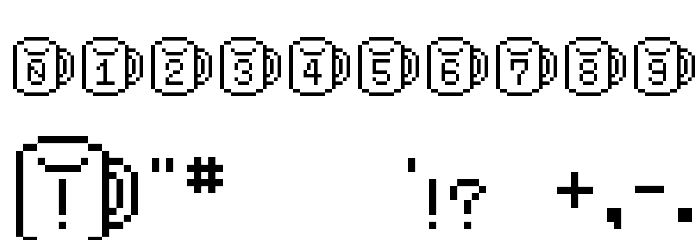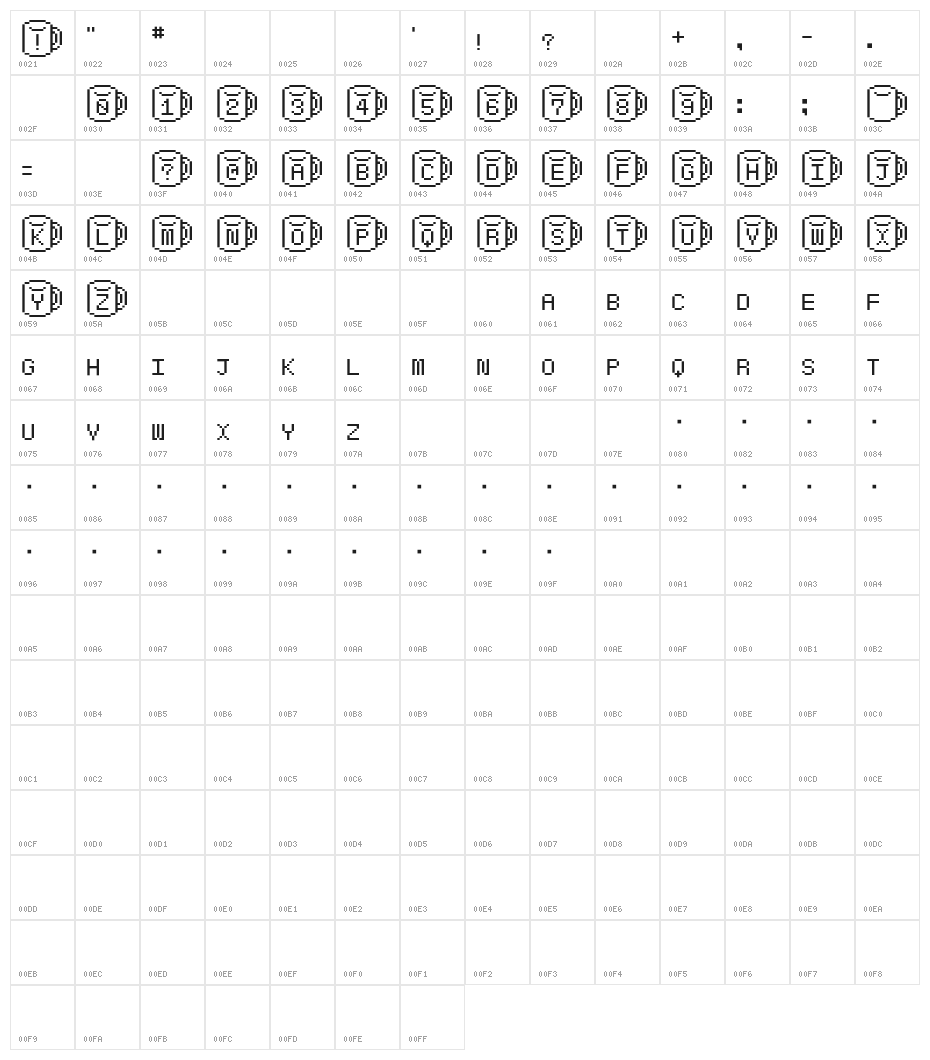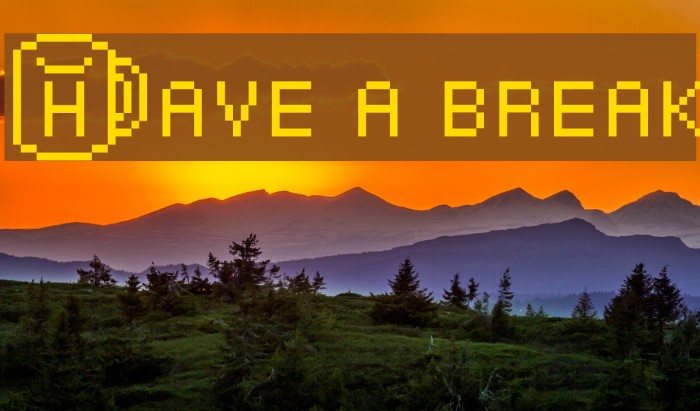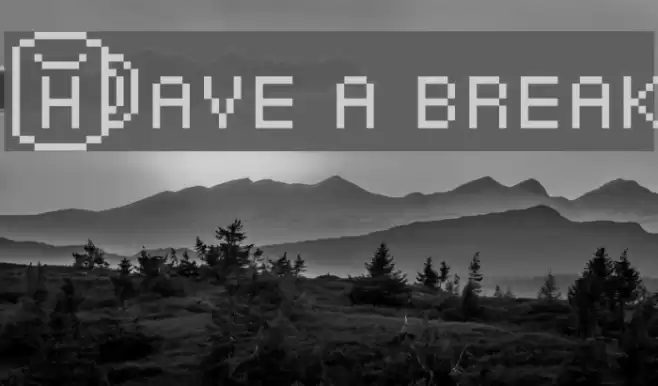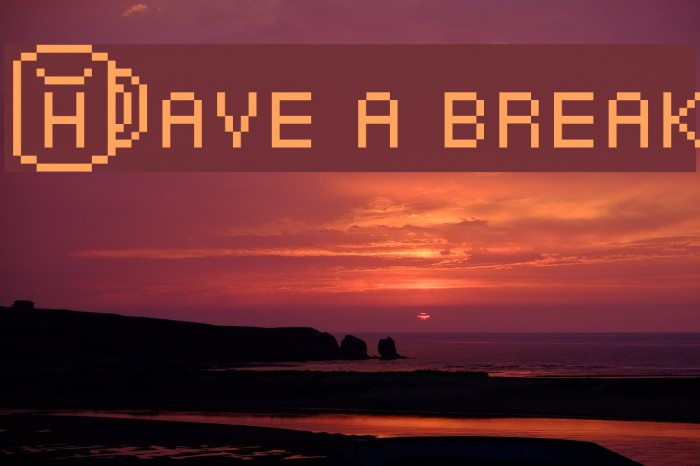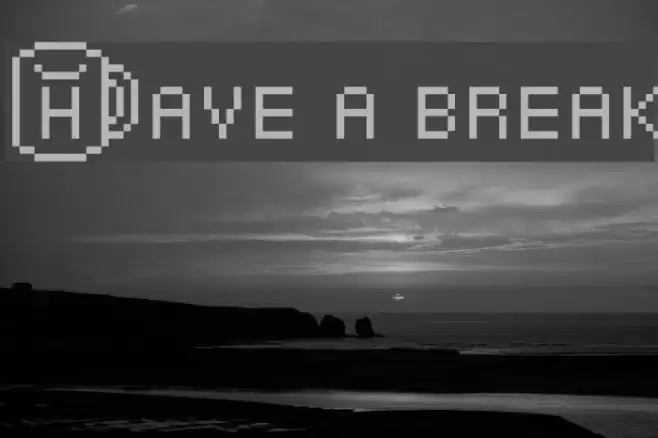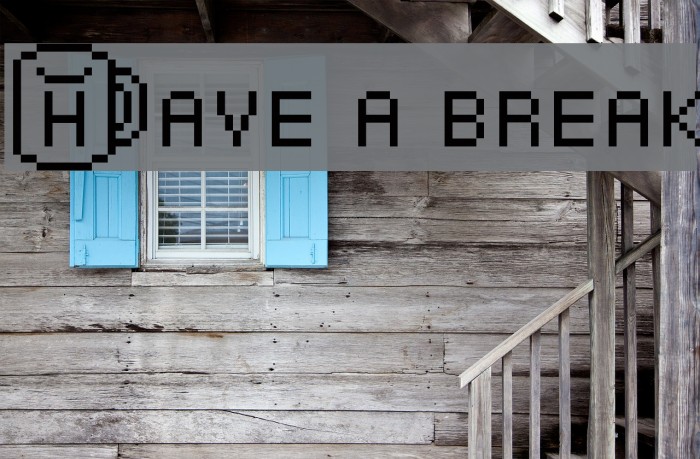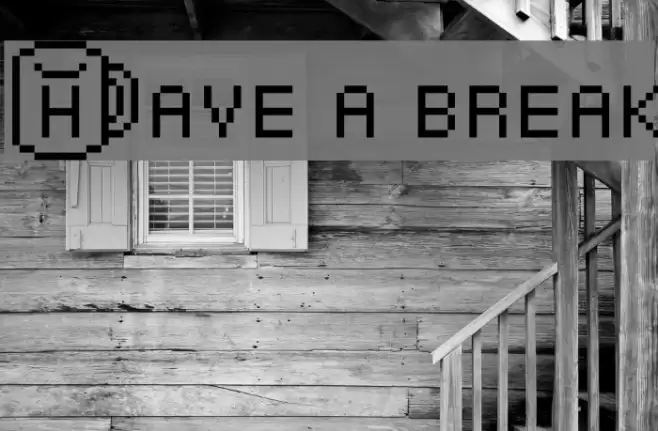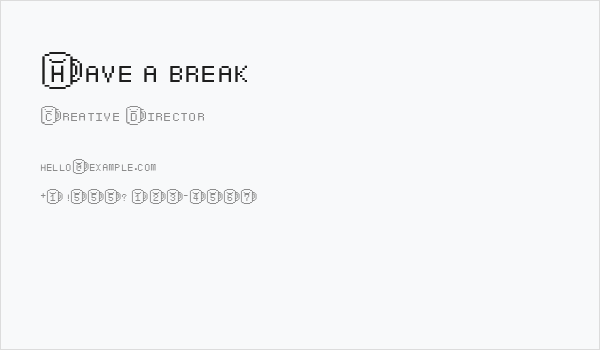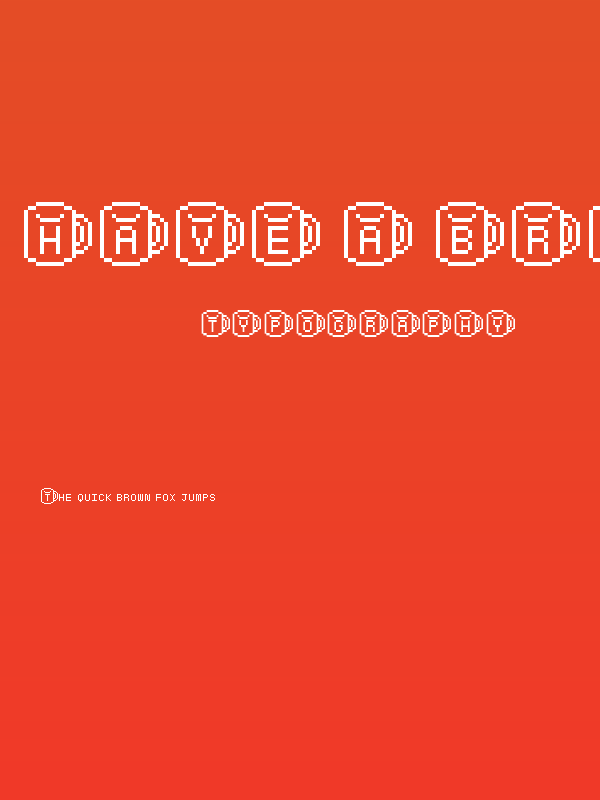
Have a break Font
Have a break Description
This font features a pixelated, blocky design reminiscent of early digital displays and classic arcade games. The characters are uniformly structured with a consistent height and width, giving it a monospaced appearance. The uppercase letters are bold and prominent, while the lowercase letters maintain the same pixelated style, ensuring readability. Numbers and special characters are also designed in this pixelated format, adding to the cohesive digital aesthetic. The font's simplicity and retro vibe make it ideal for projects that aim to evoke nostalgia or a tech-oriented theme.
Overall StyleRetro, Digital
Use CaseHeadlines, Logos, Digital displays
Proposed ProjectsIdeal for video game design, retro-themed posters, digital art projects, and tech-related branding.